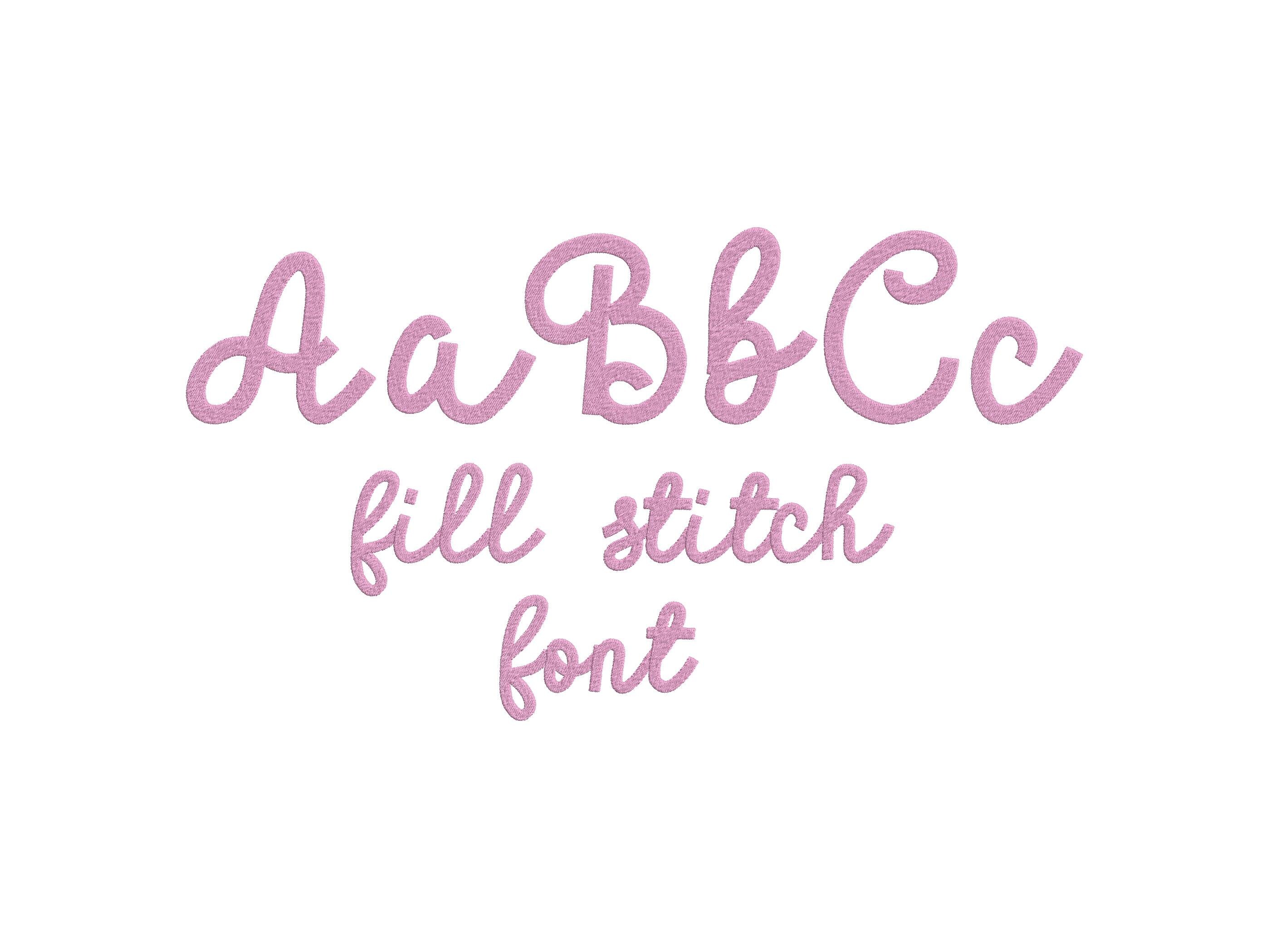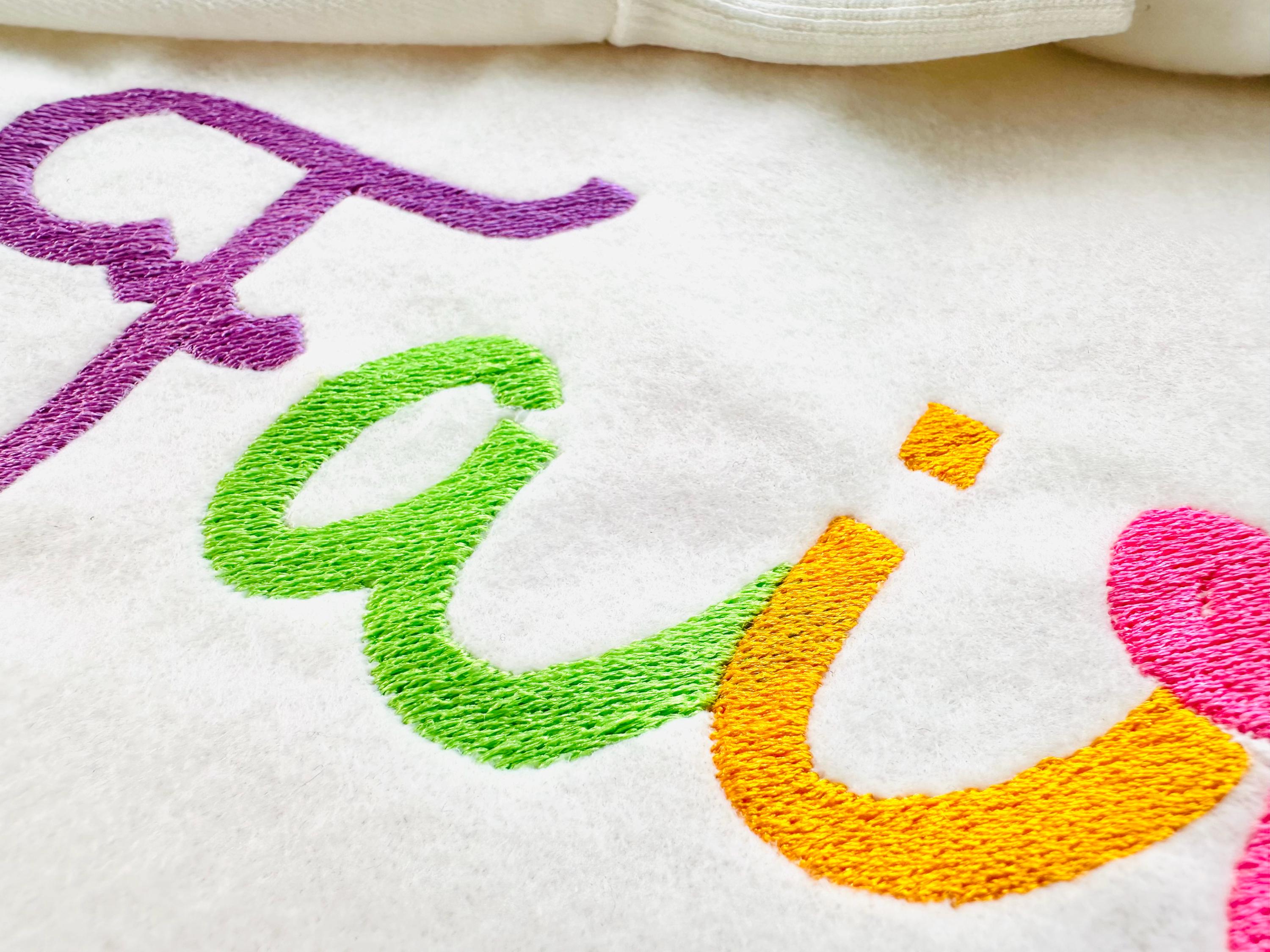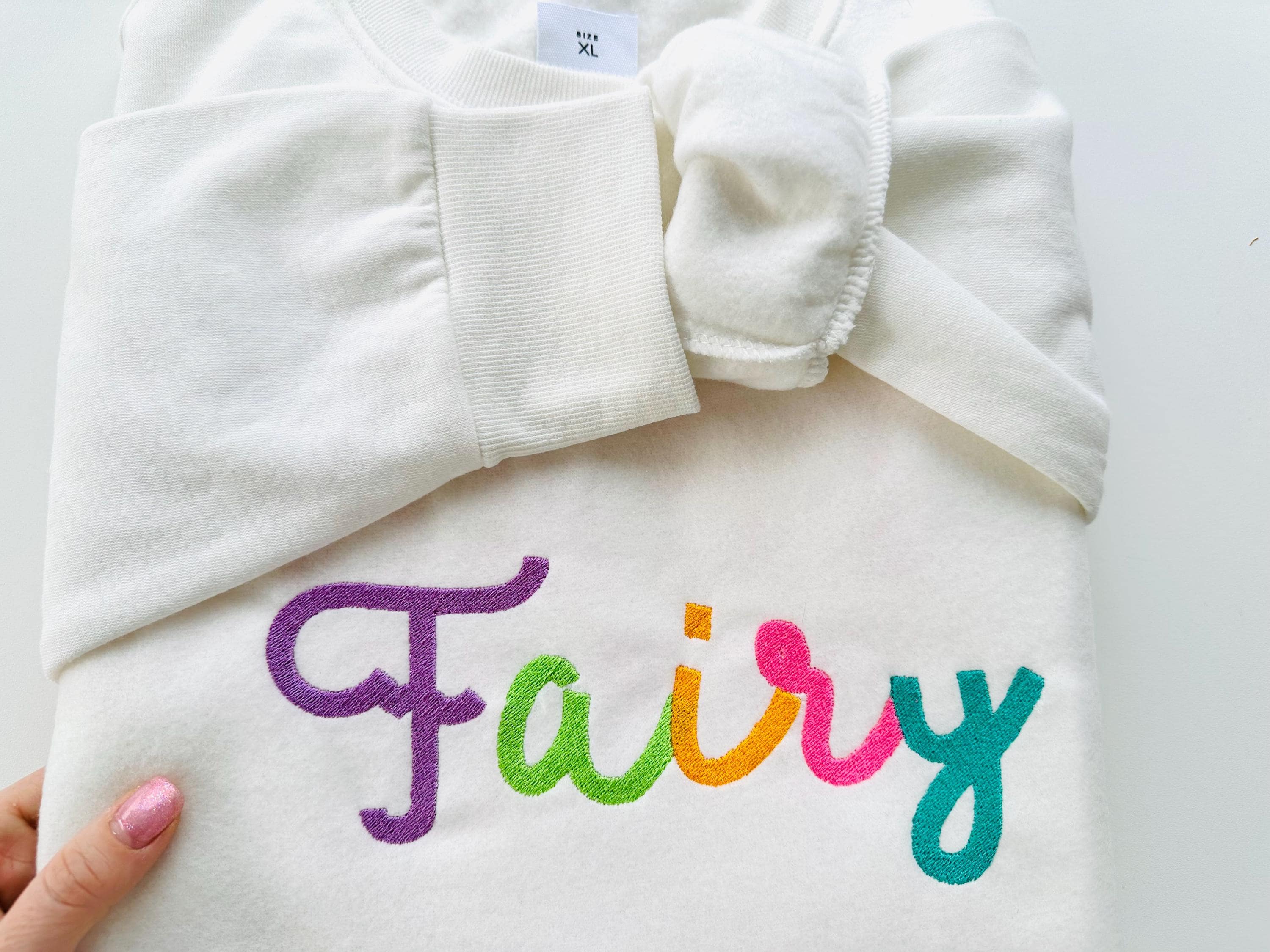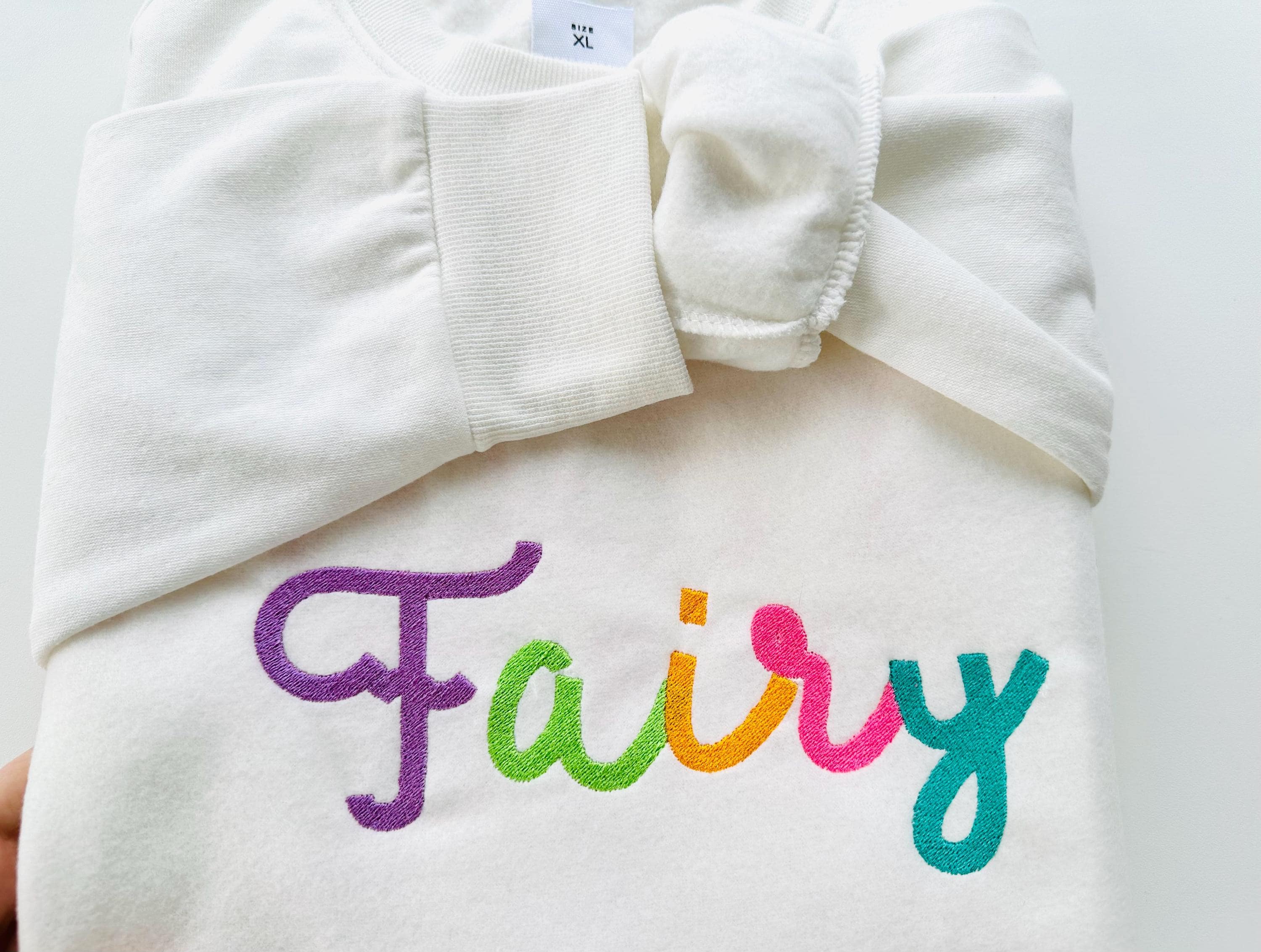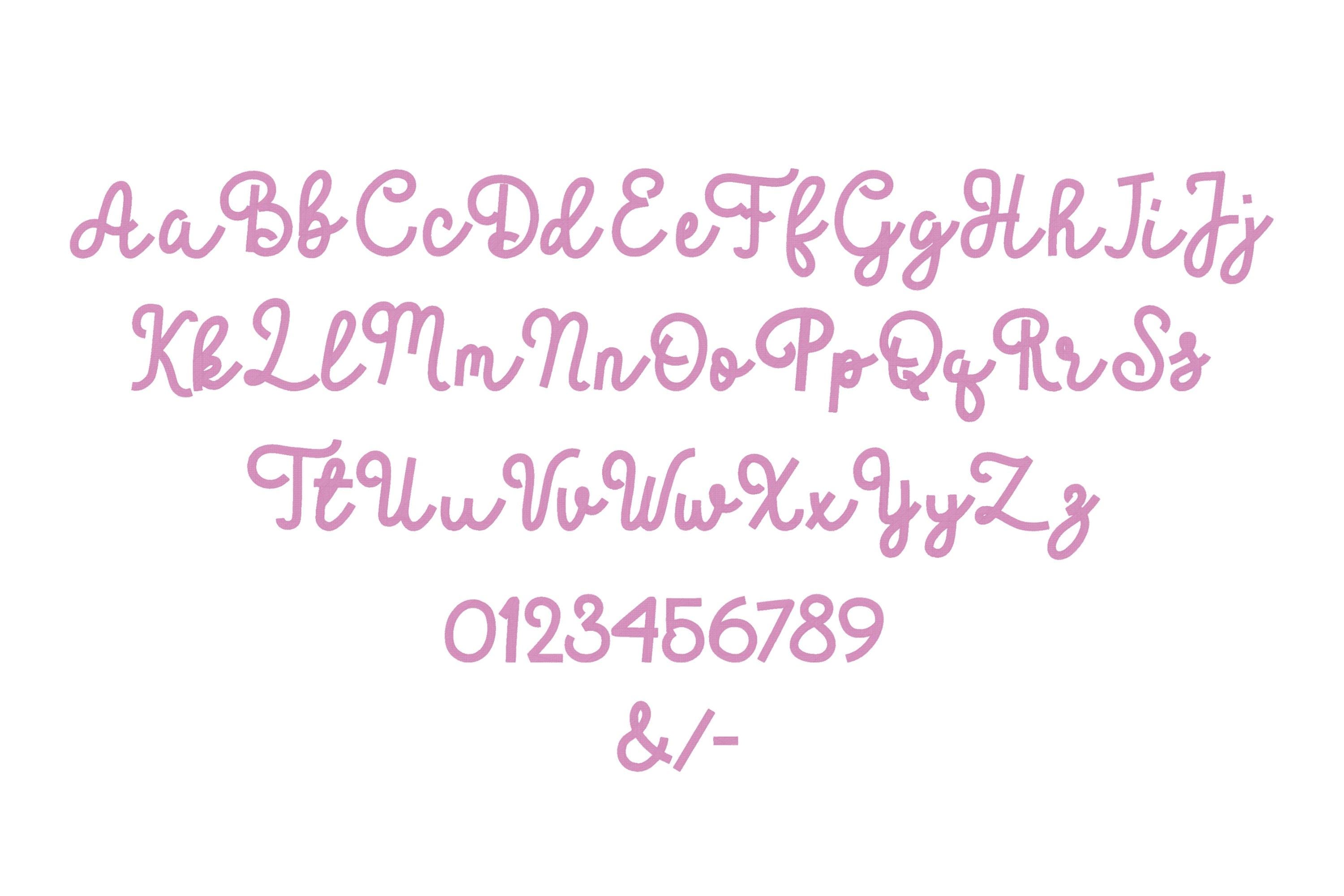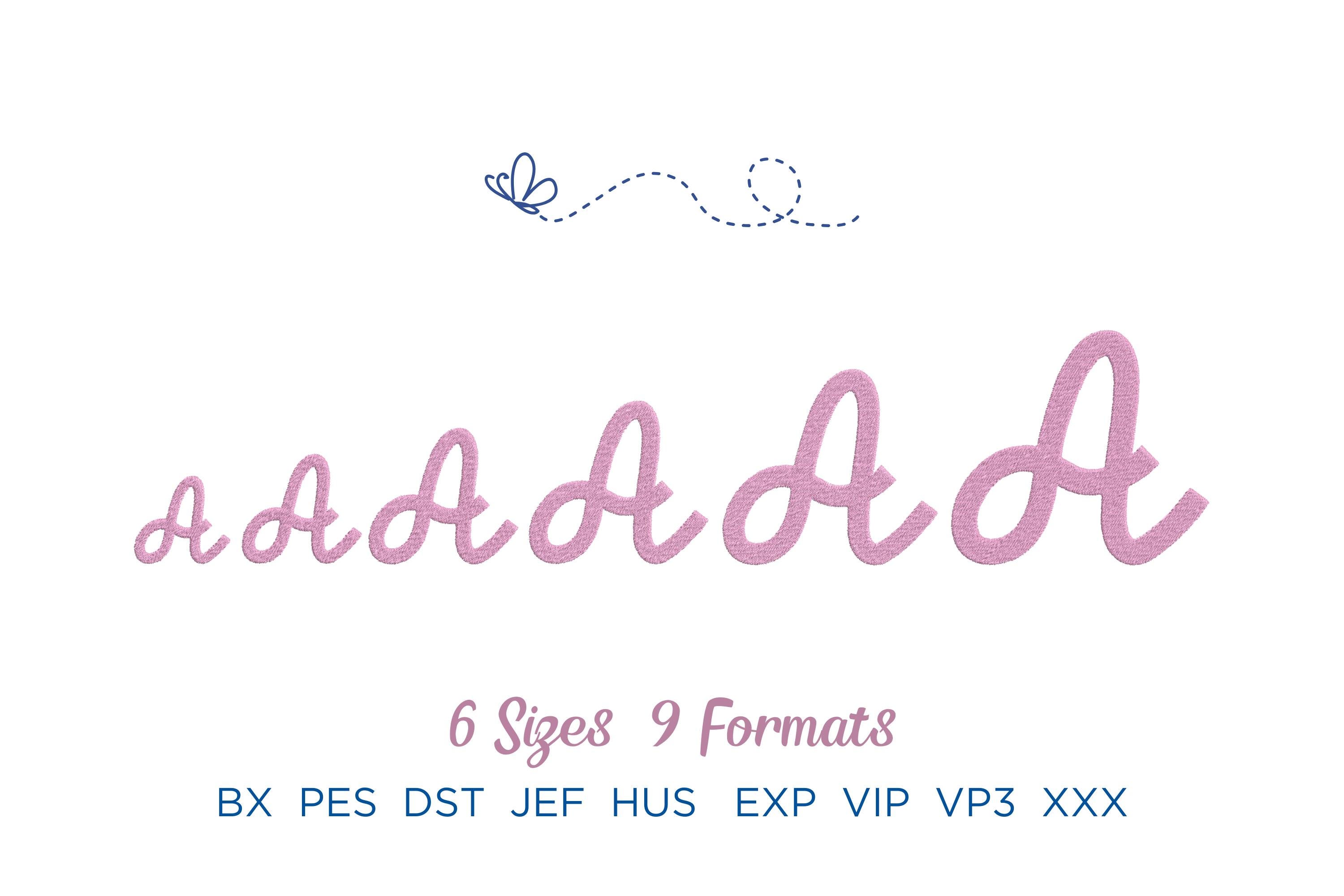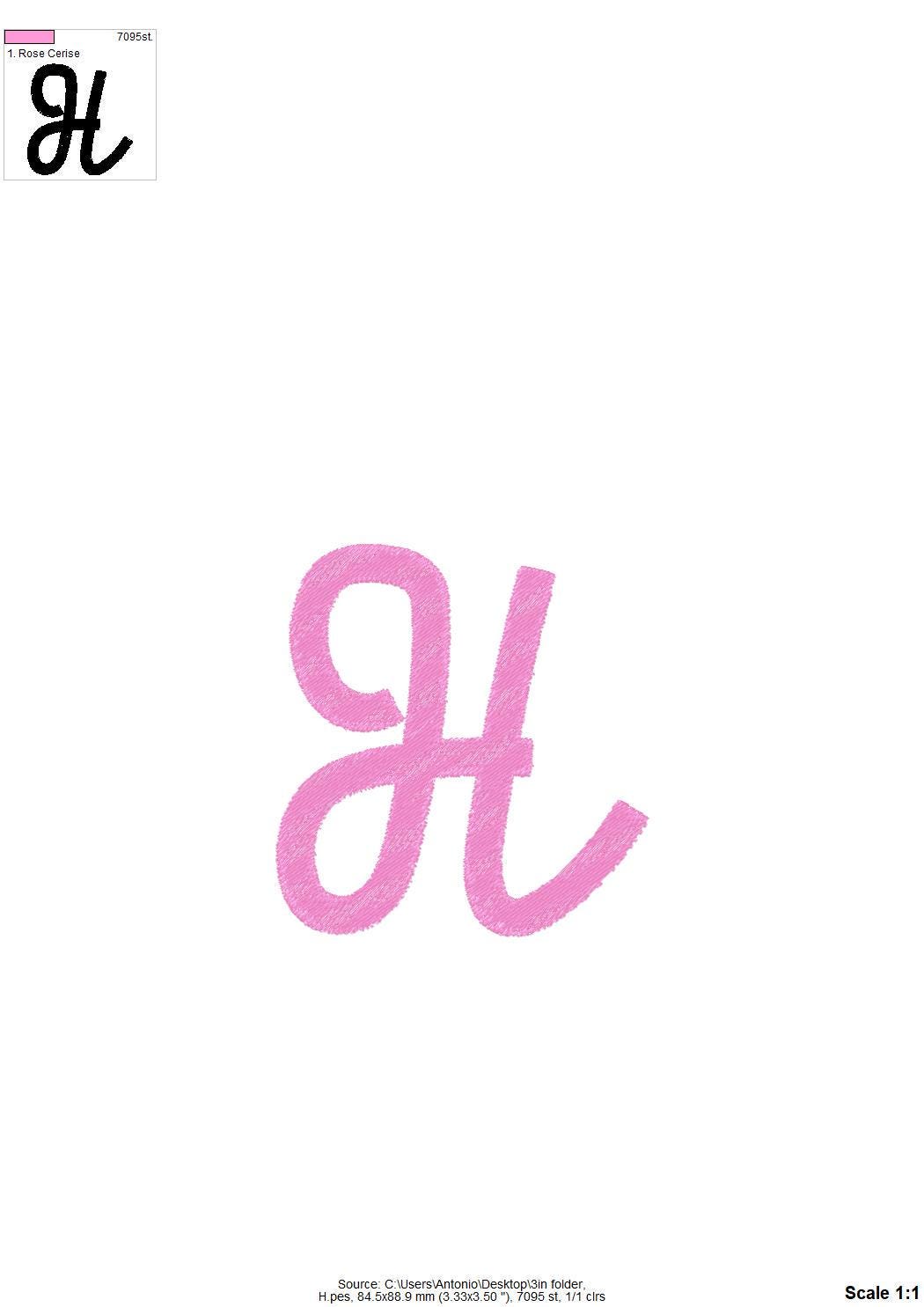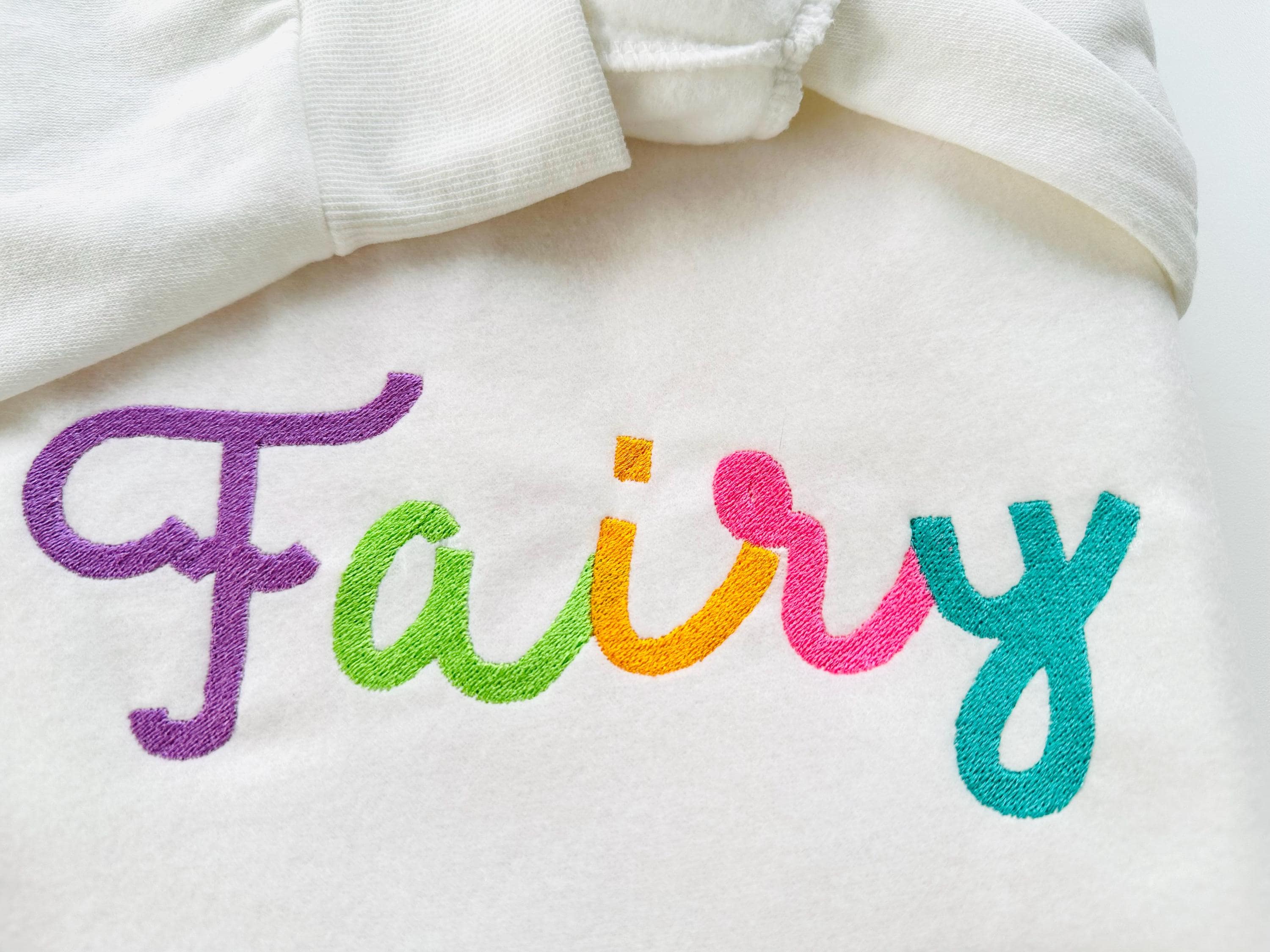
Fill stitch handwritten FONT Tala kids monogram name machine embroidery designs script alphabet letters multiple sizes 1.6 up to 4.3in, BX
Whole alphabet A-Z uppercase and lowercase letters, numbers 0-9, and punctuation.